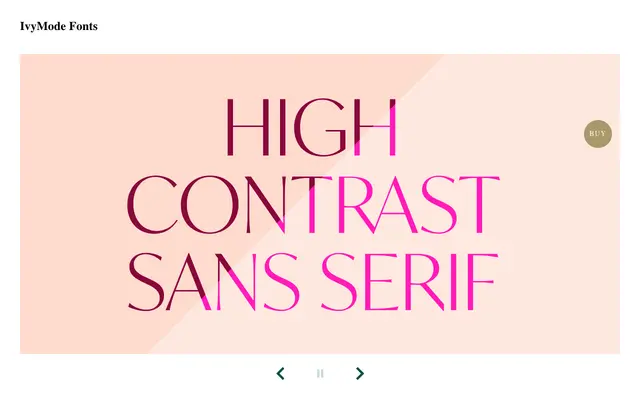
IvyMode
Ivy Foundry · Jan Maack
A high-contrast flared sans by Jan Maack with diamond dots, bias-cut extenders and an unusually rich set of discretionary ligatures.
Designed by Jan Maack, IvyMode grew from a companion piece to IvyJournal into a fully independent family. Pronounced stroke contrast, subtly flared stroke endings, slightly angled stress and extenders cut on the bias give it a pressed, precise quality suited to fashion editorial and luxury branding. The OpenType feature set is notably generous, with stylistic sets, dozens of uppercase and lowercase discretionary ligatures, and both lining and old-style figures across ten styles plus two variable fonts.
IvyMode is a sans-serif with pronounced stroke contrast, subtly flared terminals that hint at serifs, and slightly angled stress — placing it firmly in the high-contrast or flared sans tradition rather than a conventional grotesque or humanist classification.